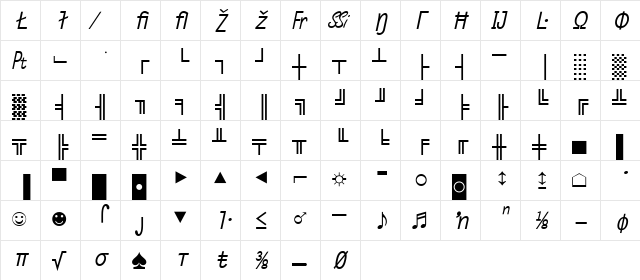
Micro Pi Three SSi Normal
Design Context for Micro Pi Three SSi Typeface
Micro Pi Three SSi is a composed and adaptable typeface that performs quietly and consistently across a wide range of design contexts.